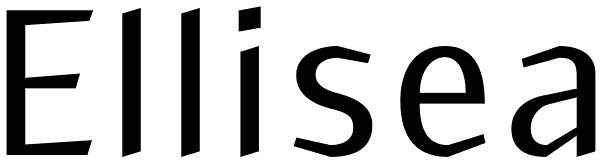
Ellisea
Ellisea (pronounced L-S-E) blends traditional letter shapes with straight lines to project a strong, unique image perfect for display purposes or medium-length text blocks. Ellisea is best used in printed material but is attractive in small sizes on...